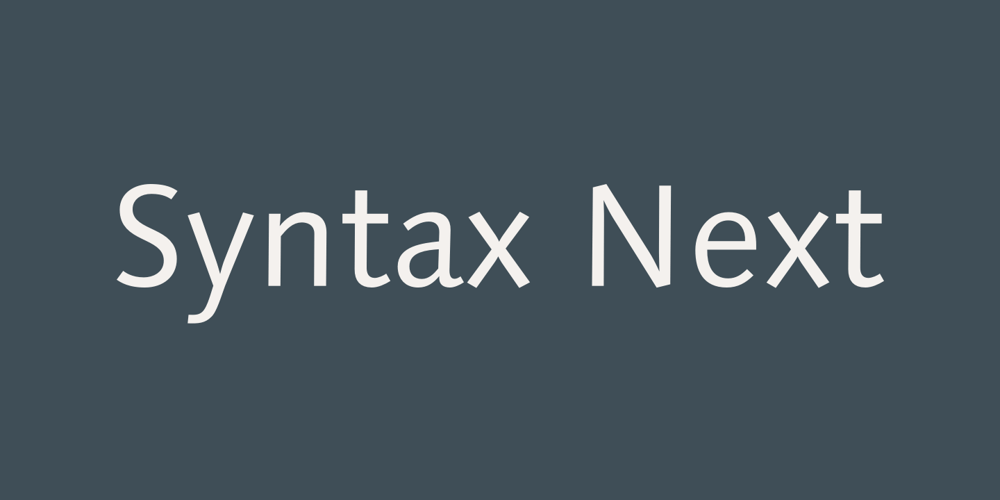
Syntax Next
Syntax Next font
Syntax Next Font Family was designed by Hans Eduard Meier and published by Linotype. Syntax Next contains 12 styles and family package options. Syntax was designed by Swiss typographer Hans Eduard Meier, and issued in 1968 by the D. Stempel AG type foundry as their last hot metal type family. Meier used an unusual rationale in the design of this sans serif typeface; it has the shapes of humanist letters or oldstyle types (such as Sabon), but with a modified monoline treatment. The original drawings were done in 1954; first by writing the letters with a brush, then redrawing their essential linear forms, and finally adding balanced amounts of weight to the skeletons to produce optically monoline letterforms. Meier wanted to subtly express the rhythmical dynamism of written letters and at the same time produce a legible sans serif typeface. This theme was supported by using a very slight slope in the roman, tall ascenders, terminals at right angles to stroke direction, caps with classical proportions, and the humanist style a and g. The original foundry metal type was digitized in 1989 to make this family of four romans and one italic. Meier completely reworked Syntax in 2000, completing an expanded and improved font family that is available exclusively from Linotype GmbH as Linotype Syntax. In 2009 the typeface family was renamed into a more logical naming of “Syntax Next” to fit better in the Platinum Collection naming.”Syntax® Next font field guide including best practices, font pairings and alternatives.